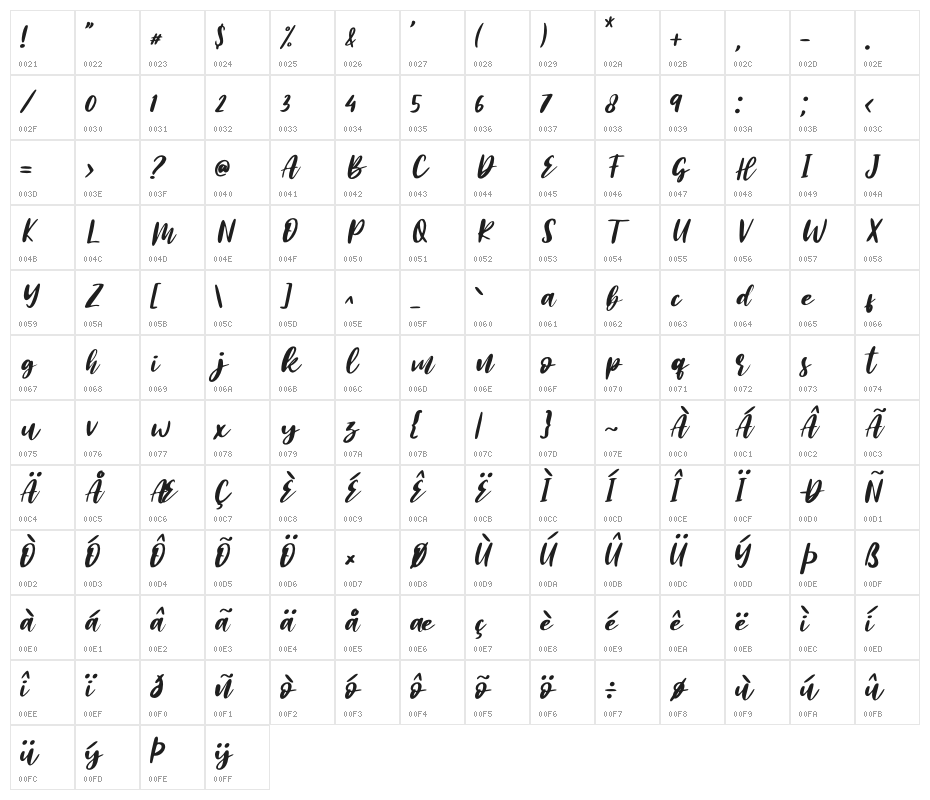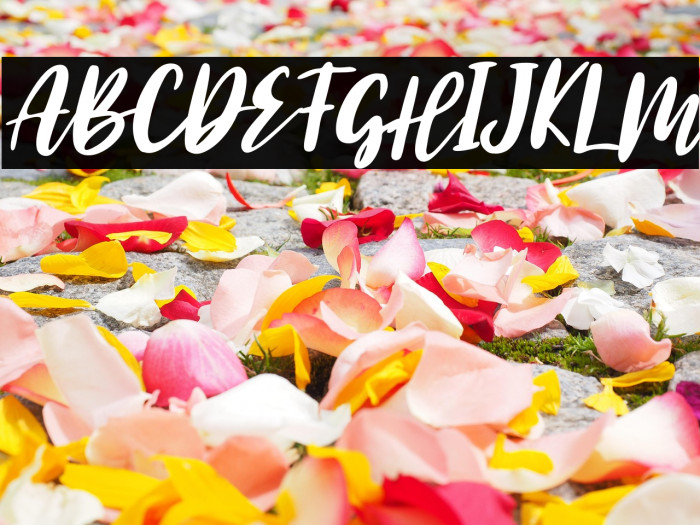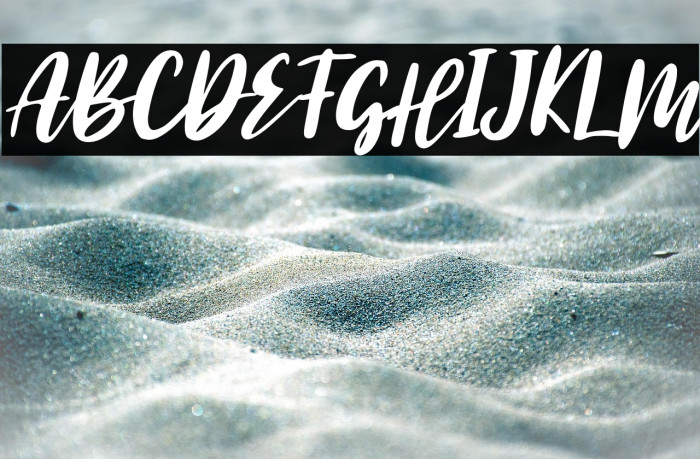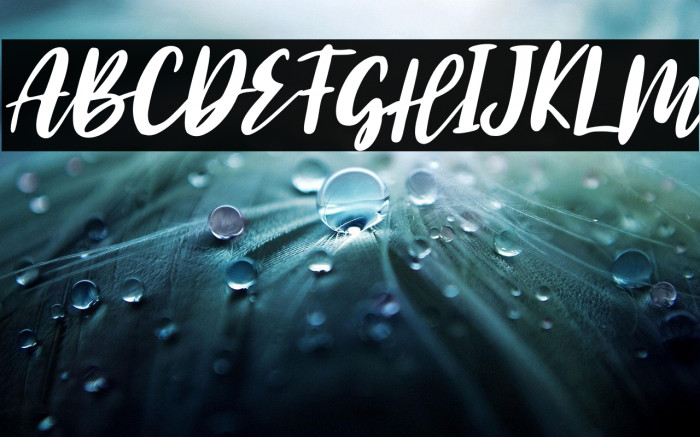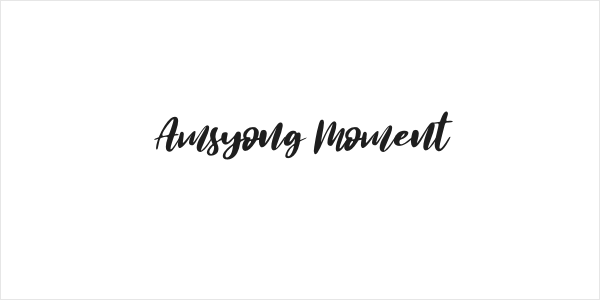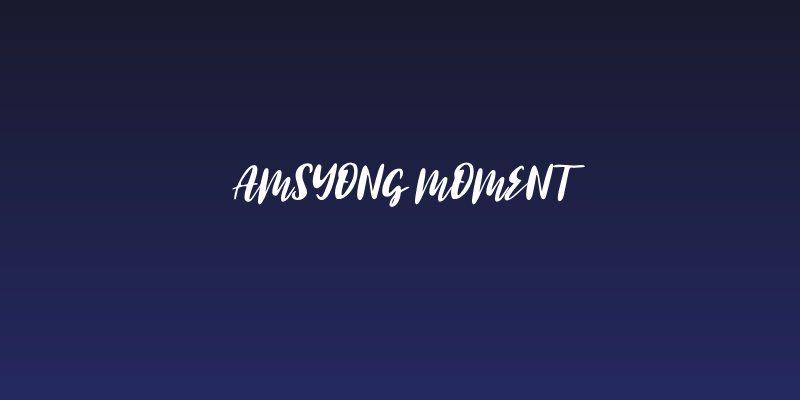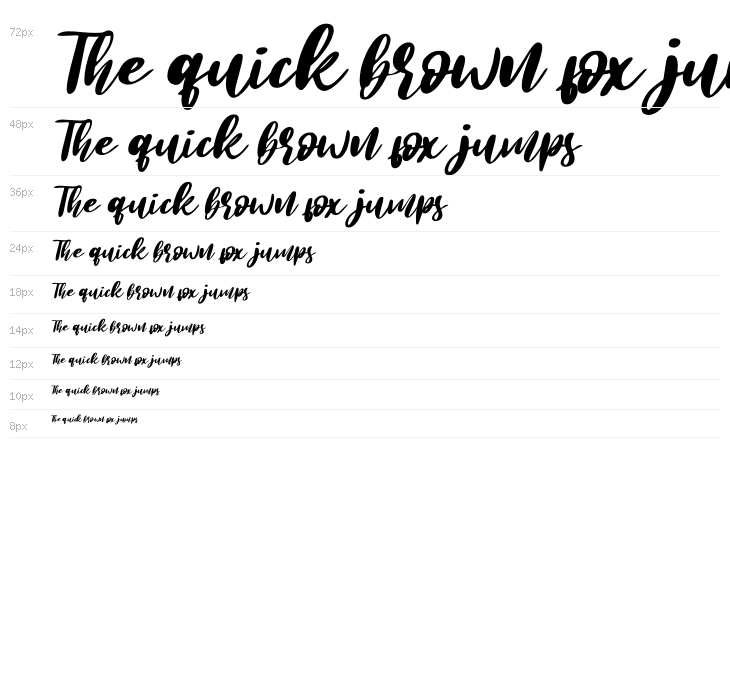
Amsyong Moment Font
Amsyong Moment Description
This font features a bold and expressive script style, characterized by its fluid, handwritten appearance. The strokes are thick and dynamic, giving it a lively and energetic feel. The uppercase letters are slightly more structured, while the lowercase letters exhibit a more casual and flowing form. The numbers and special characters maintain the same boldness and fluidity, ensuring consistency across all characters. This font's design is perfect for creating eye-catching headlines or logos that require a personal touch.